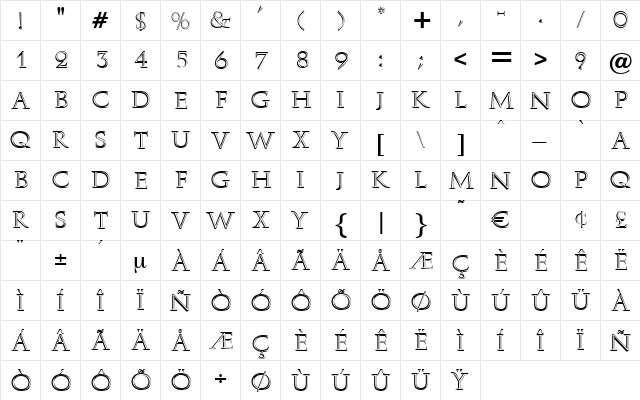
RamonaInline Regular Font Preview
RamonaInline Regular
Design Context for RamonaInline Typeface
RamonaInline brings ornamental detail and strong personality to headlines and identities, where visual impact matters more than quiet functionality.
Font Pairing: Pair with a clean neutral sans-serif for body copy to let RamonaInline's character lead without overwhelming the composition.
Pro Tip: Treat RamonaInline as the centrepiece of your typographic hierarchy. One strong heading set in a decorative face can carry an entire layout.